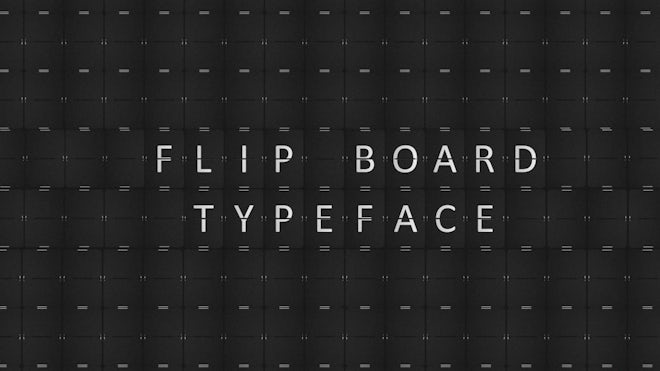
This After Effects template features a 3D flipping board typeface. It includes a set of 48 alphabet characters and 1 empty letter. You can edit the text, font, size, etc. You can adjust the colors to match your style. A tutorial video is included. Give it a try!